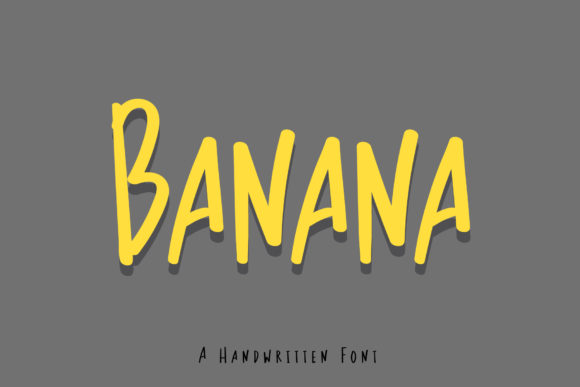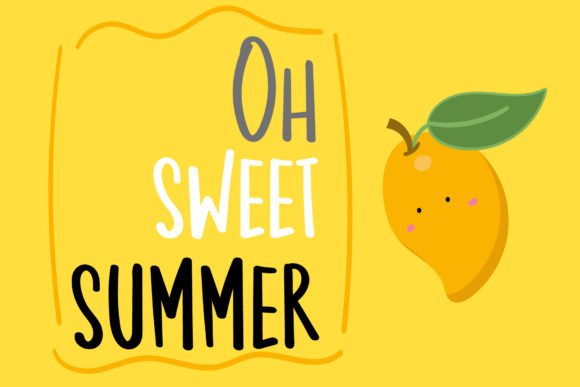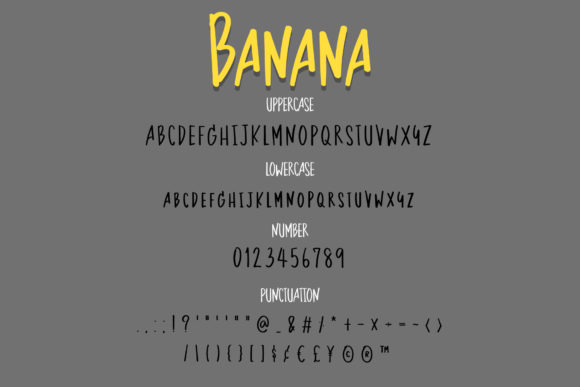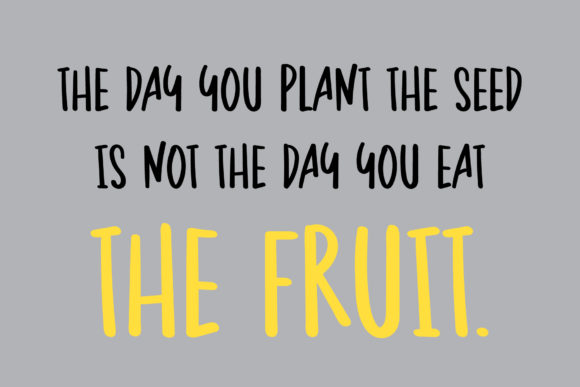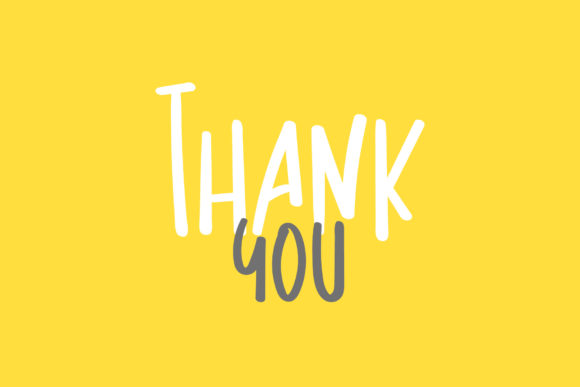
Banana Font
About Banana Font
Introducing Banana, a cute and quirky handwritten font that radiates charm and playfulness. This font is a true gem, designed to add a touch of creativity and artistry to any project. Whether you’re searching for fonts to enhance your Instagram posts or calligraphy scripts for DIY projects, Banana is here to transform your ideas into delightful works of art!
Banana’s cute and quirky style brings a sense of fun and whimsy to your text. Each letter dances merrily, as if crafted with a cheerful brush. Whether you’re working on social media graphics, crafty DIY projects, or anything in between, Banana adds a touch of playfulness that captivates and brings smiles.
The font’s versatility knows no bounds. As you embrace Banana, you’ll discover how seamlessly it complements a wide array of design projects. From cute and colorful invitations to adorable greeting cards, Banana’s charm enhances your creations with its delightful appeal.
Imagine using Banana to create captivating typography art. Its quirky and handwritten style becomes a centerpiece, adding a unique and artistic flair to your designs. Let your creativity run wild and watch as your artwork comes alive with joy and creativity.
For quotes that radiate positivity and happiness, Banana brings an aura of sunshine. Whether shared on social media or added to cheerful wall art, your messages will spread smiles with a touch of cuteness.
Greeting cards become extra special with Banana’s adorable touch. Be it birthdays, celebrations, or special occasions, the font’s cute and quirky script makes your greetings stand out, leaving recipients feeling warm and fuzzy.
In conclusion, Banana is more than just a font; it’s an embodiment of cuteness and creativity. With its quirky handwritten style, Banana becomes a delightful asset for all your design projects. Embrace the charm and playfulness of Banana and watch as your creations turn into true pieces of art. Let your imagination run free in the cute and quirky embrace of Banana, the handwritten font that defines creativity and joy.